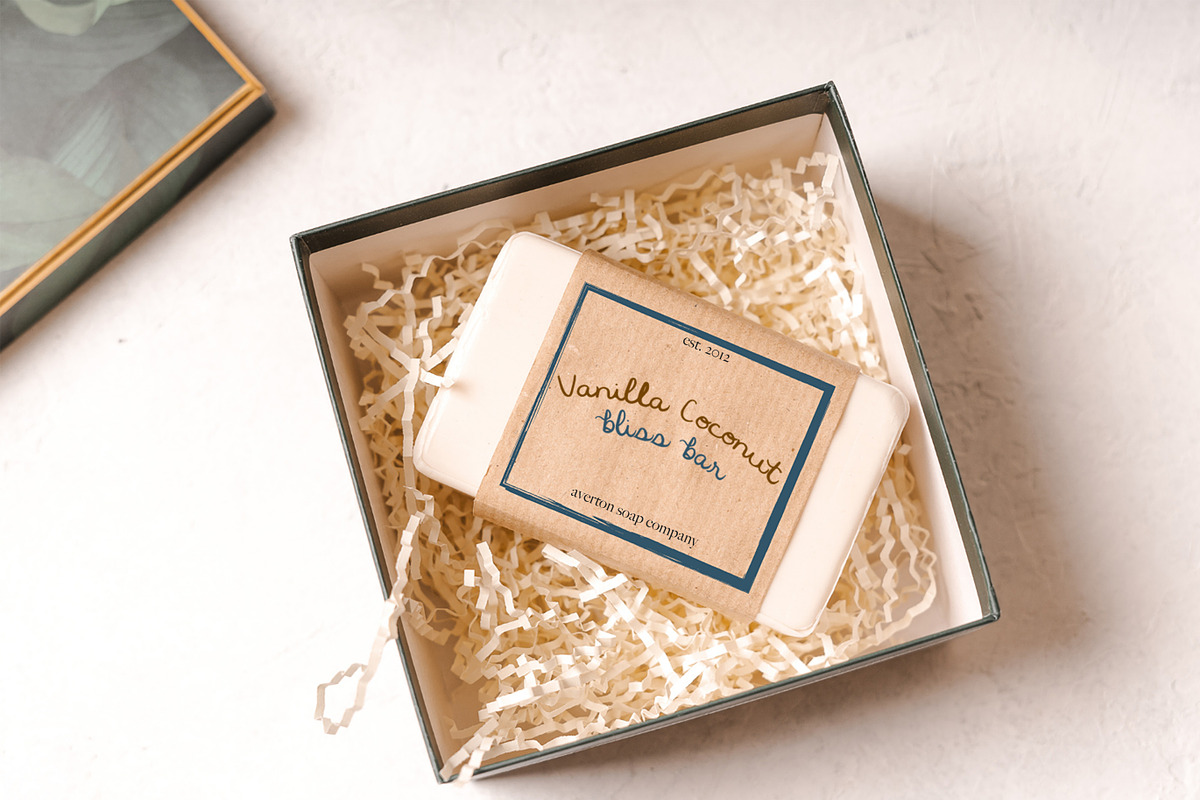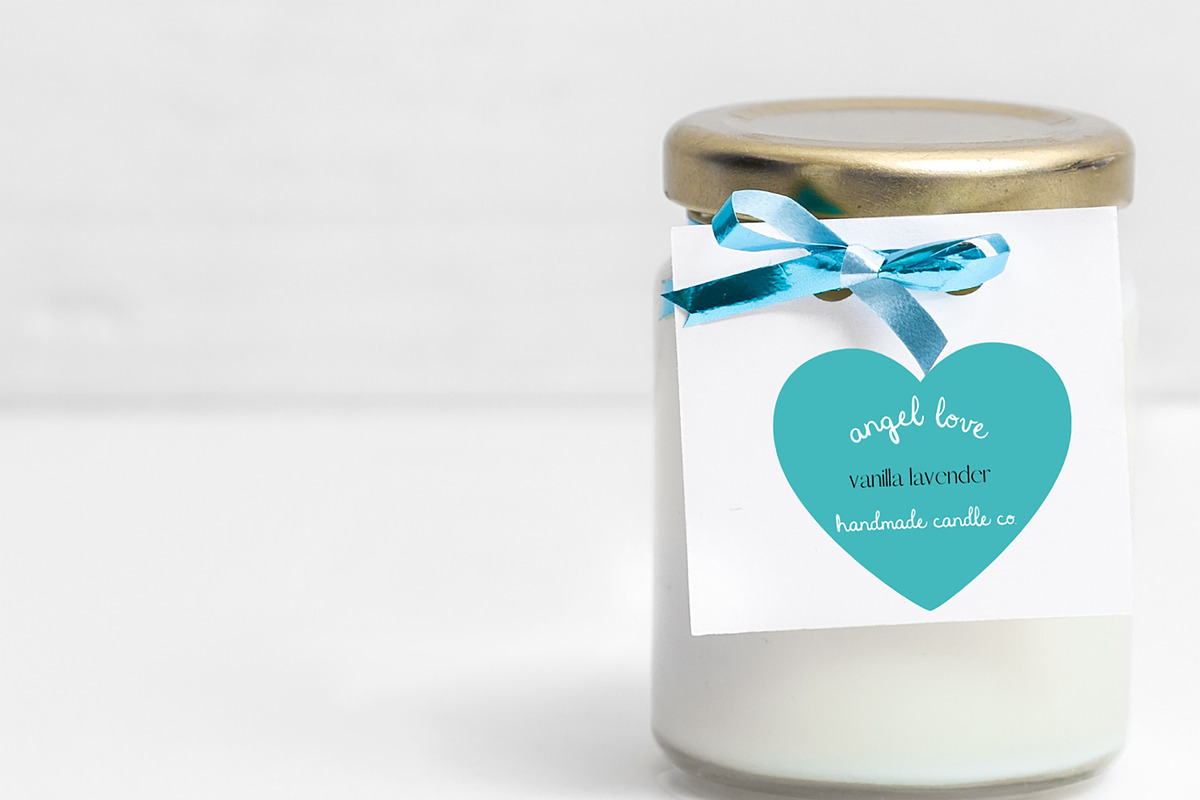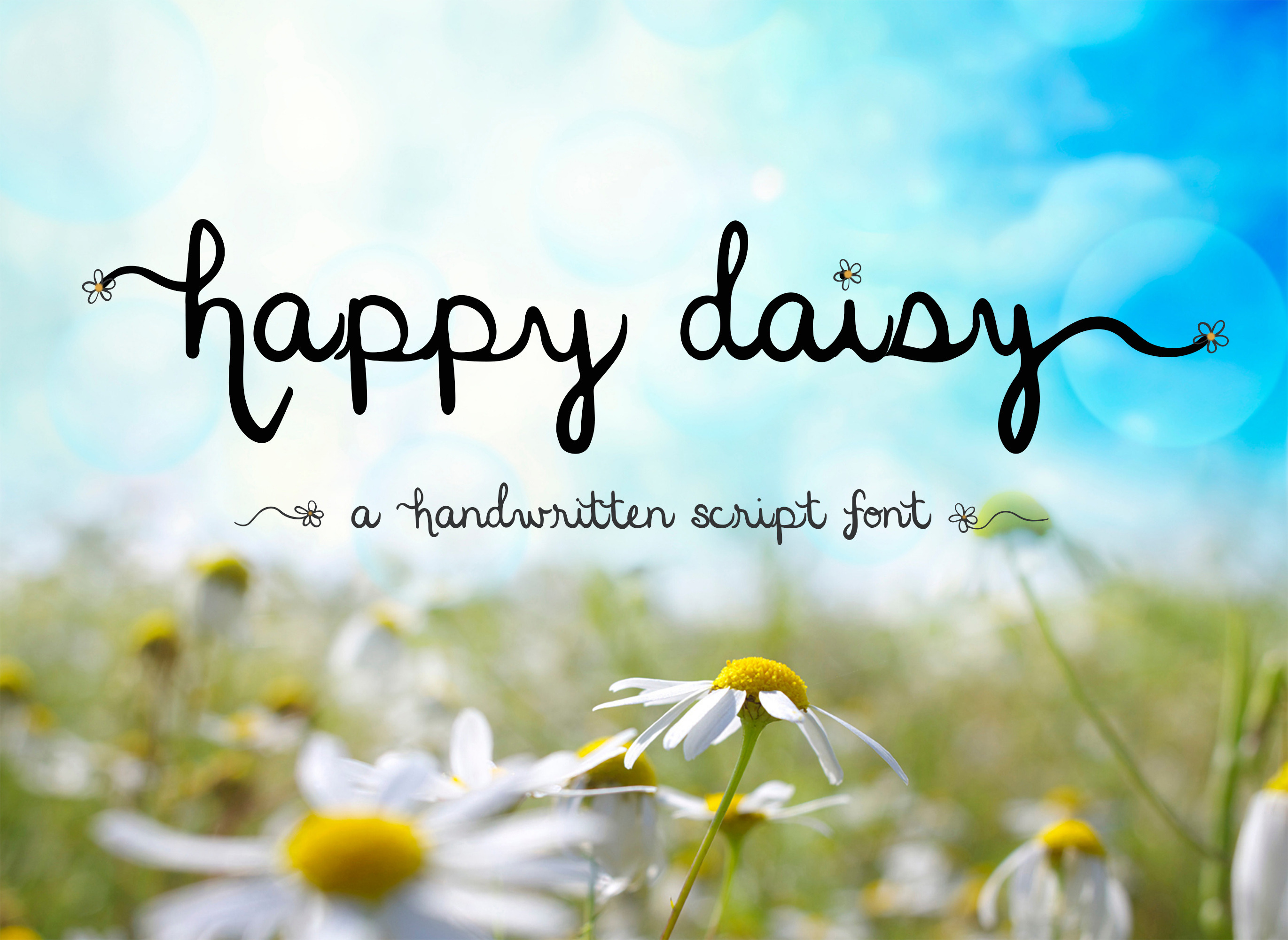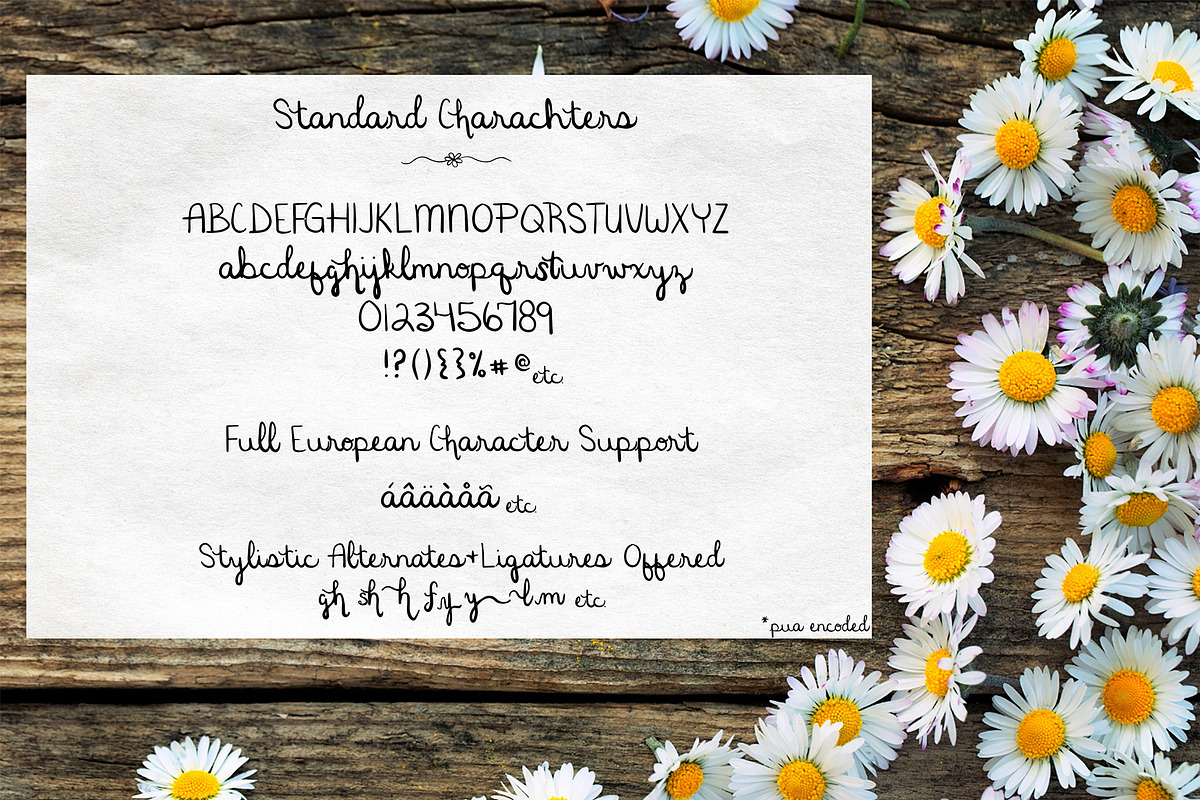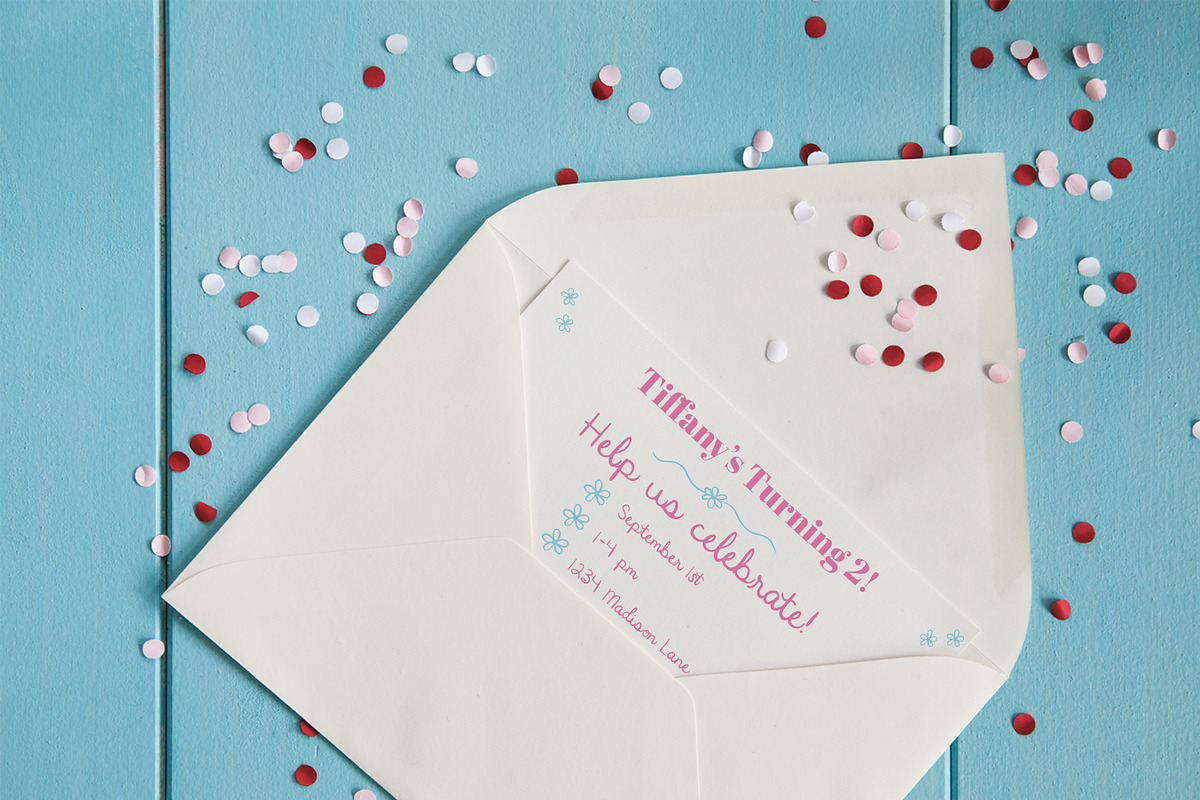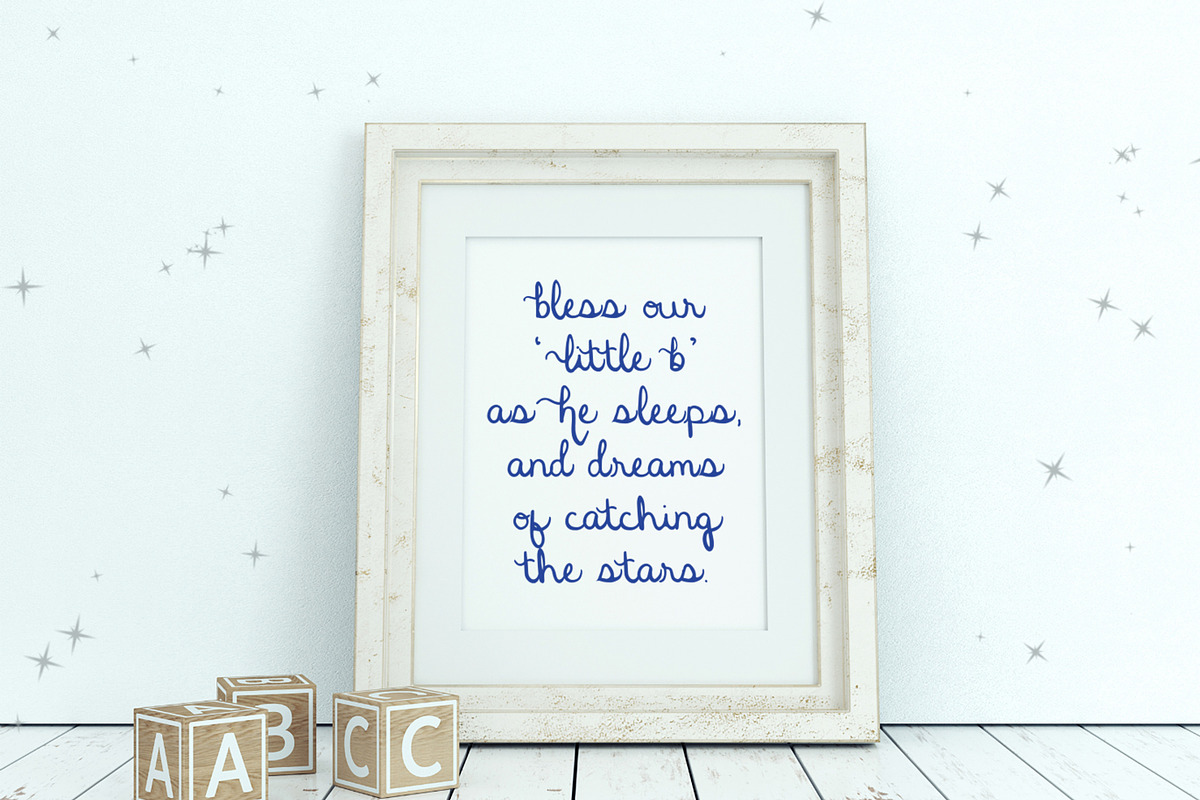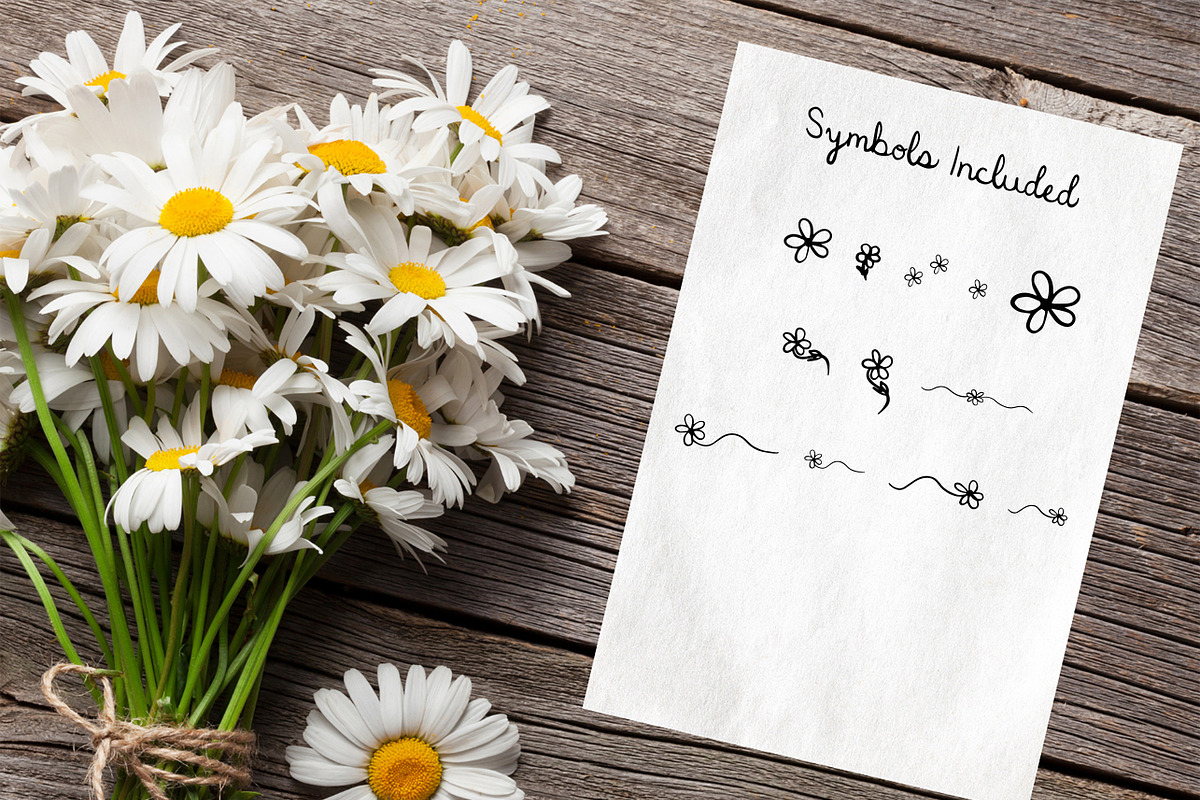
Happy Daisy Handwritten Script Font
Happy Daisy is a playful handwritten script font with fun bonus symbols included with your purchase. Enjoy using this bubbly script font in programs such as Adobe Illustrator and Photoshop, or use with your crafting machines. From branding your website and marketing pieces to creating unique e-commerce products, Happy Daisy will add joy to any project. Create beautiful invitations, announcements, and apparel. Or design stickers for your digital planners.
Happy Daisy Handwritten Script Font includes:
- multilingual support w/ accented characters for international use
- standard and discretionary ligatures
- contextual alternates
- bonus file with daisy symbols